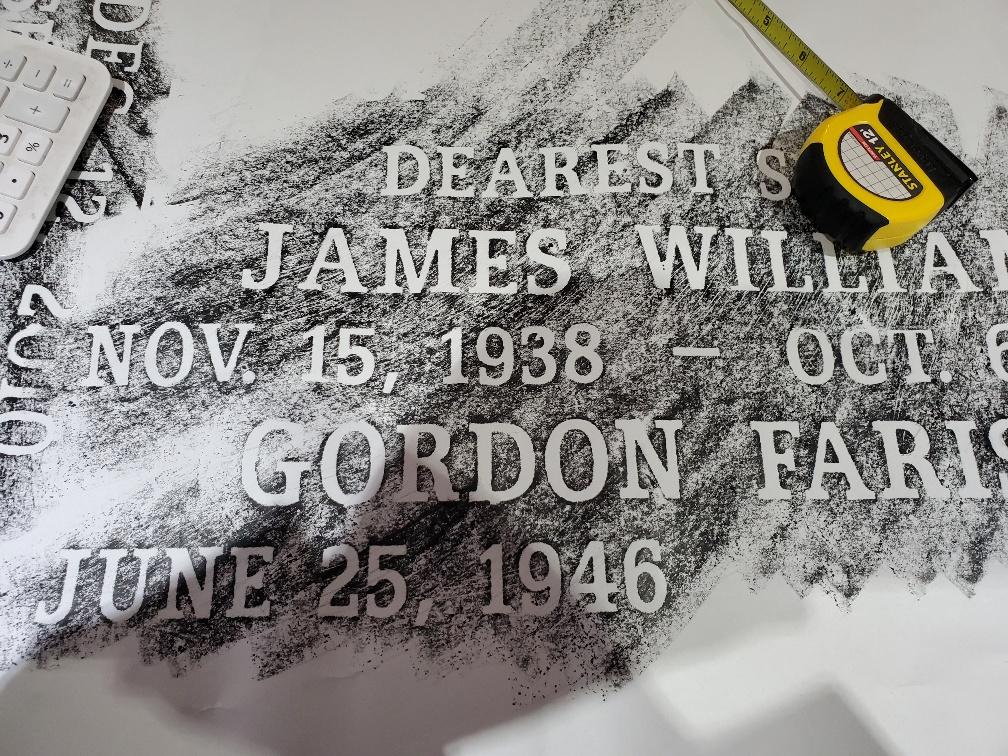
Font Master, any idea on the name of this one?
This is a font called Egyptienne 505 Bold, though it looks like it may have been manually condensed.
Egyptian 505